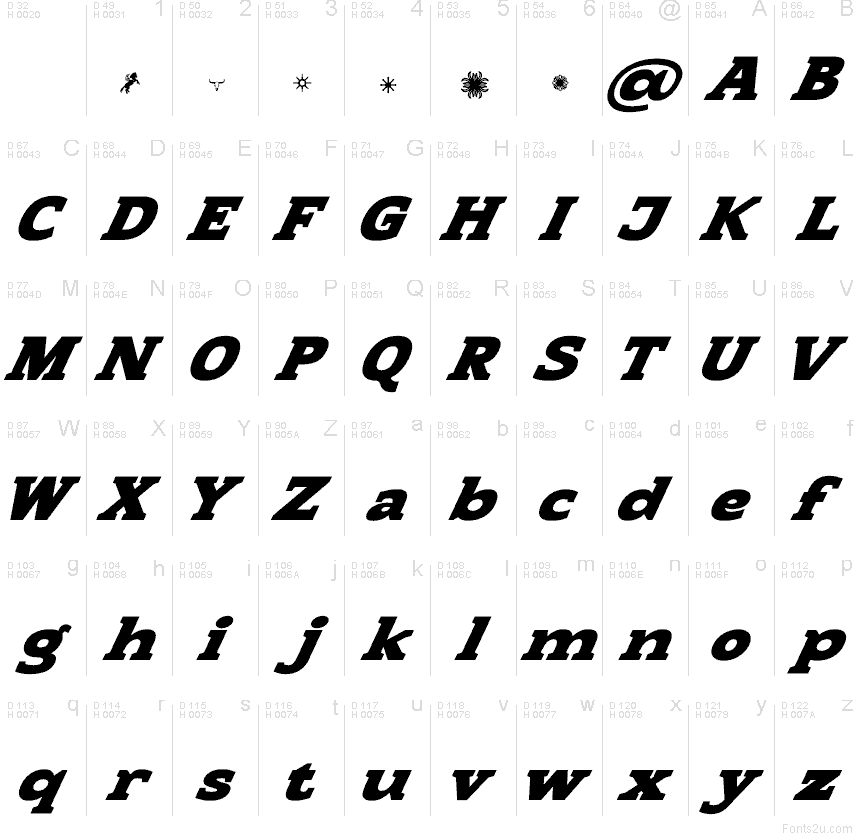
Berskal, by Hishand Studio, is a free italic serif with a heavy, fast-moving silhouette and a slightly vintage editorial air. The letters lean hard and feel cut to sweep forward, with broad curves, sharp serif edges, and tight joins that make the font look assertive rather than formal.
It fits branding, poster headlines, magazine cover lines, packaging, and title cards where a name needs motion without leaving serif territory. As a free font, Berskal Personal Use also works well for short quotes, mastheads, and monogram-style initials, because its strong slant and compact weight give even a few letters plenty of presence.